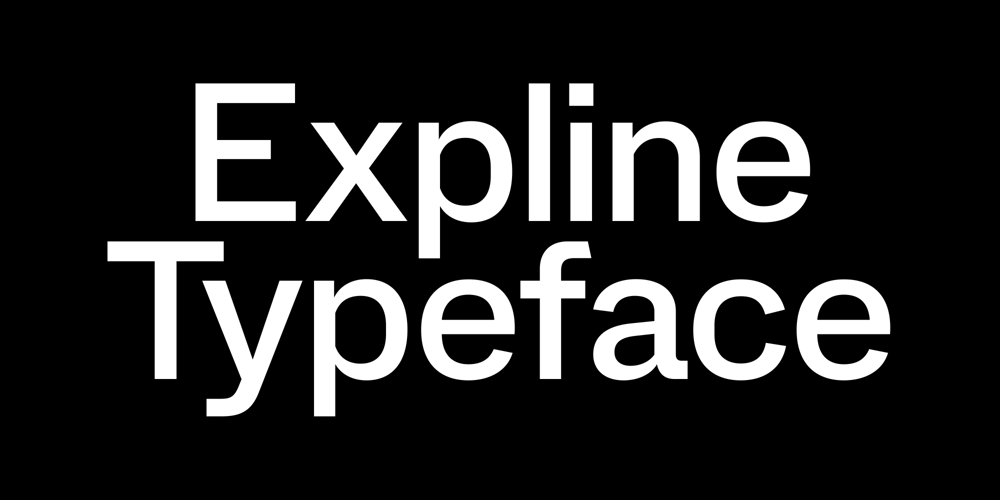
Expline Variable
Expline Variable font
Expline Variable Font Family was designed by Deni Anggara and published by Formatype Foundry. Expline Variable contains 2 styles and family package options. Expline typeface finds its roots in modernist design but subtly pays homage to early Modern Industrial Grotesks. This fusion creates a font that encapsulates the essence of tradition while embracing the contemporary. The font incorporates sharp details in select characters and curves, imparting a delicate sweetness while preserving the robust character associated with Grotesk fonts. This unique blend allows Expline to strike a perfect balance between display and text usage, making it a versatile choice for a variety of design projects.Expline’s flexibility shines through its extensive weight options. The font family offers eight distinct weights, each thoughtfully crafted to establish a clear typographic hierarchy. Designers can easily choose the right weight to suit the specific needs of their projects, whether it’s a bold headline or a refined body text. This variety ensures that your typography will always make the right visual impact.Expline typeface doesn’t stop at weights. It provides expansive character sets across each weight, encompassing all Western European diacritics, Punctuation, Mathematics, and Numerics. This ensures that your typography will seamlessly support various languages and punctuation marks, making it a global choice.In addition, the font boasts OpenType features, granting the flexibility to explore multiple subsets. This includes alternate capital letterforms, tabular and lining numerals (both proportional and old-style), enabling endless typographic possibilities. Whether you’re designing for print or web, these features allow you to fine-tune your typography for a perfect fit.Expline is a font that bridges the gap between modernist design principles and early industrial influences, resulting in a Neo-Grotesk font with a contemporary twist. Its comprehensive weight options, expansive character sets, and OpenType features make it a versatile choice for any medium between print and screen.